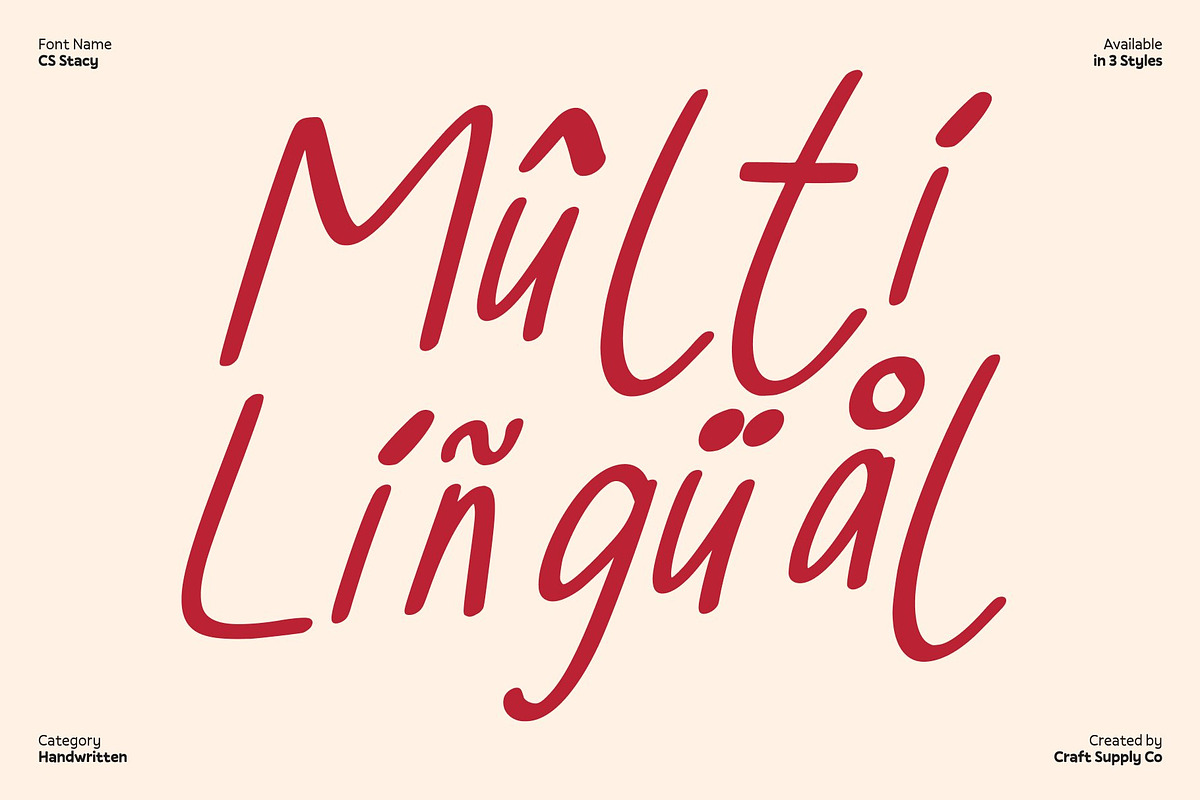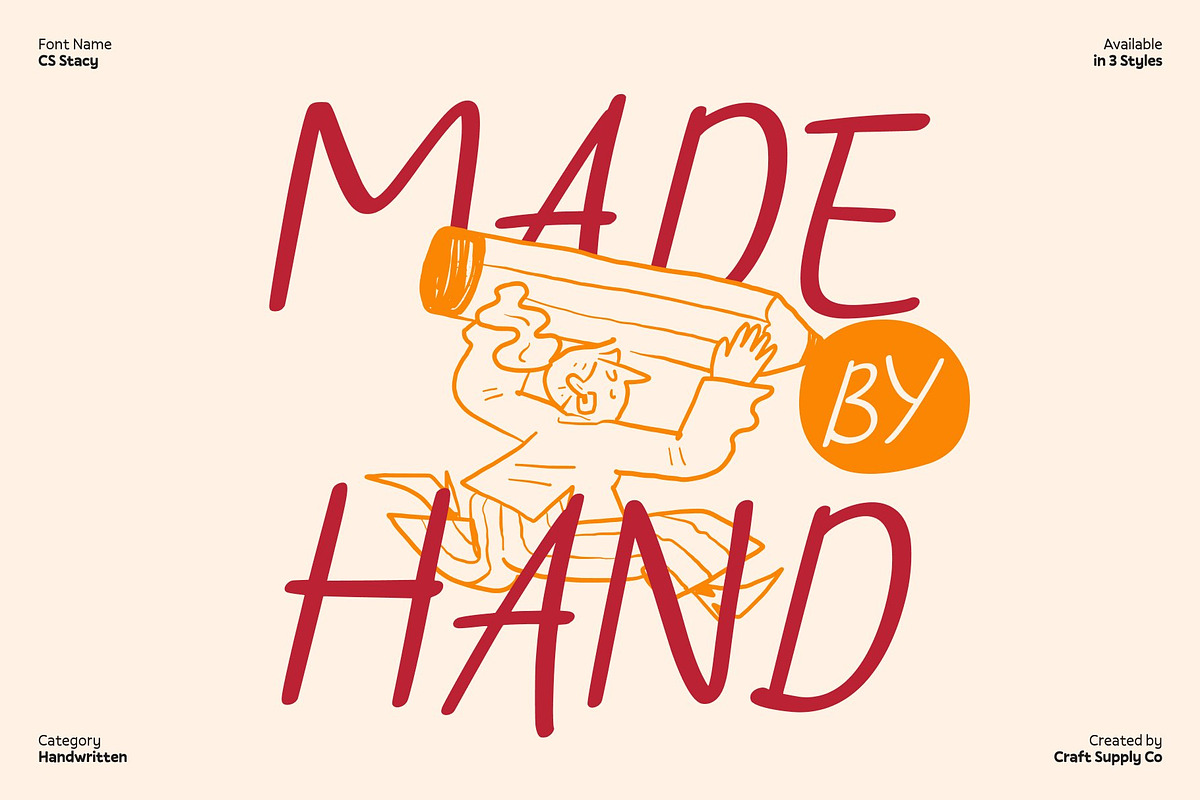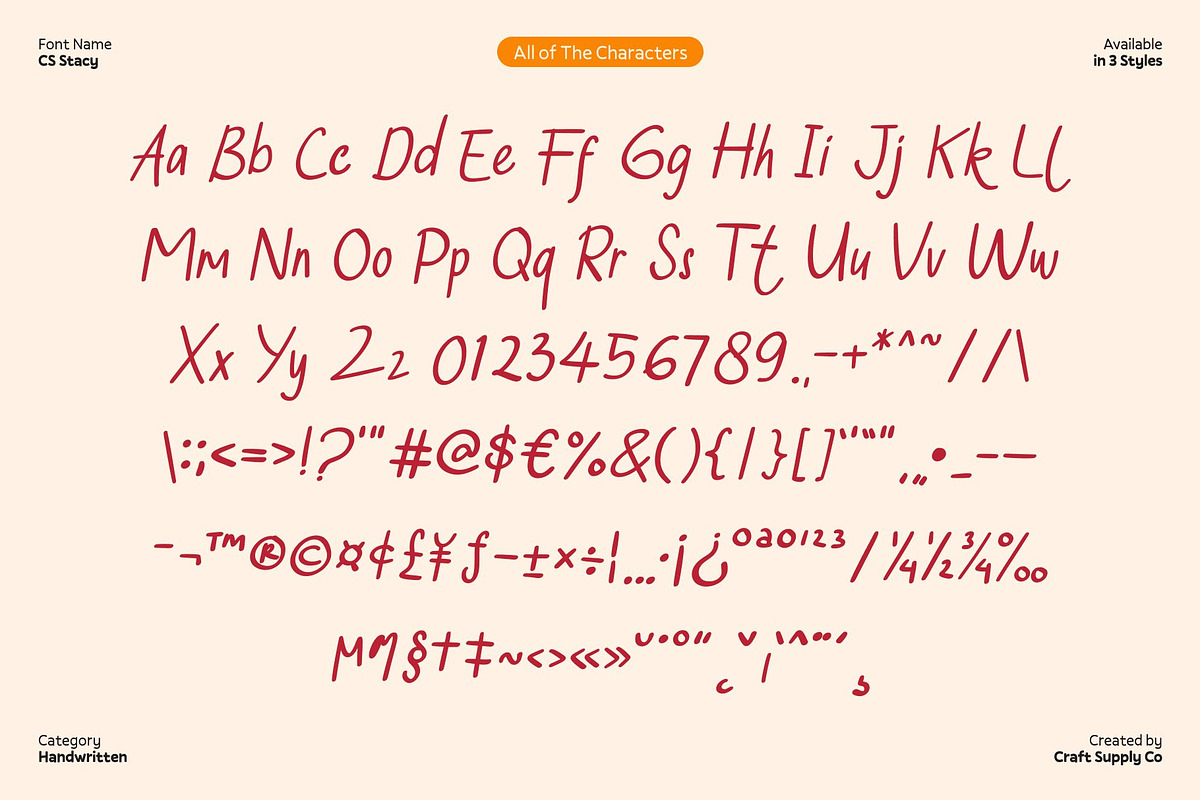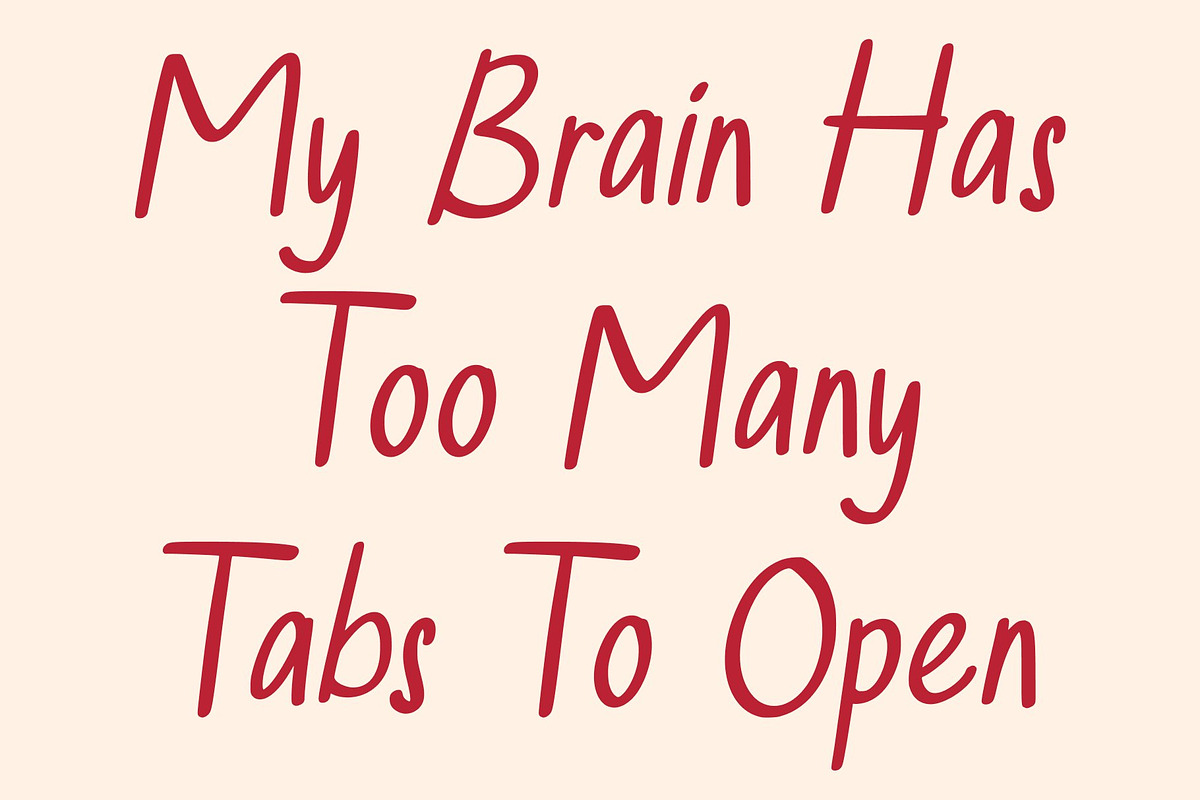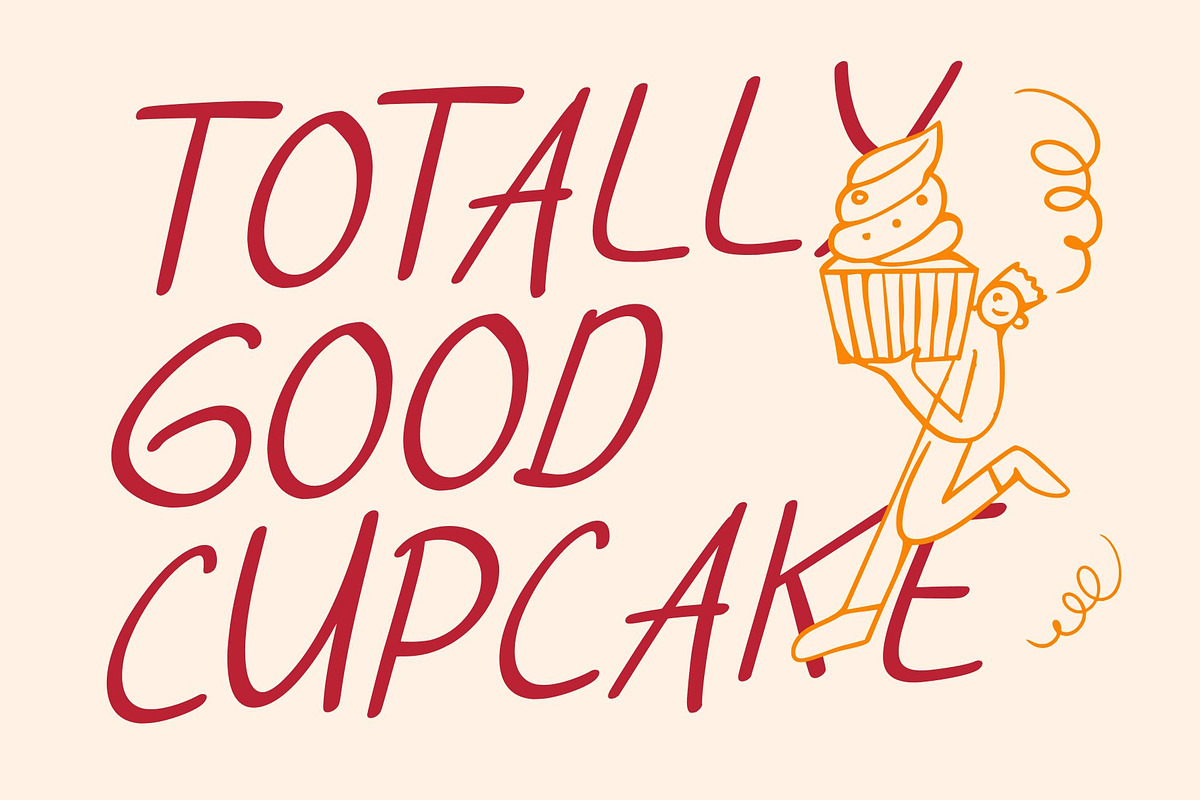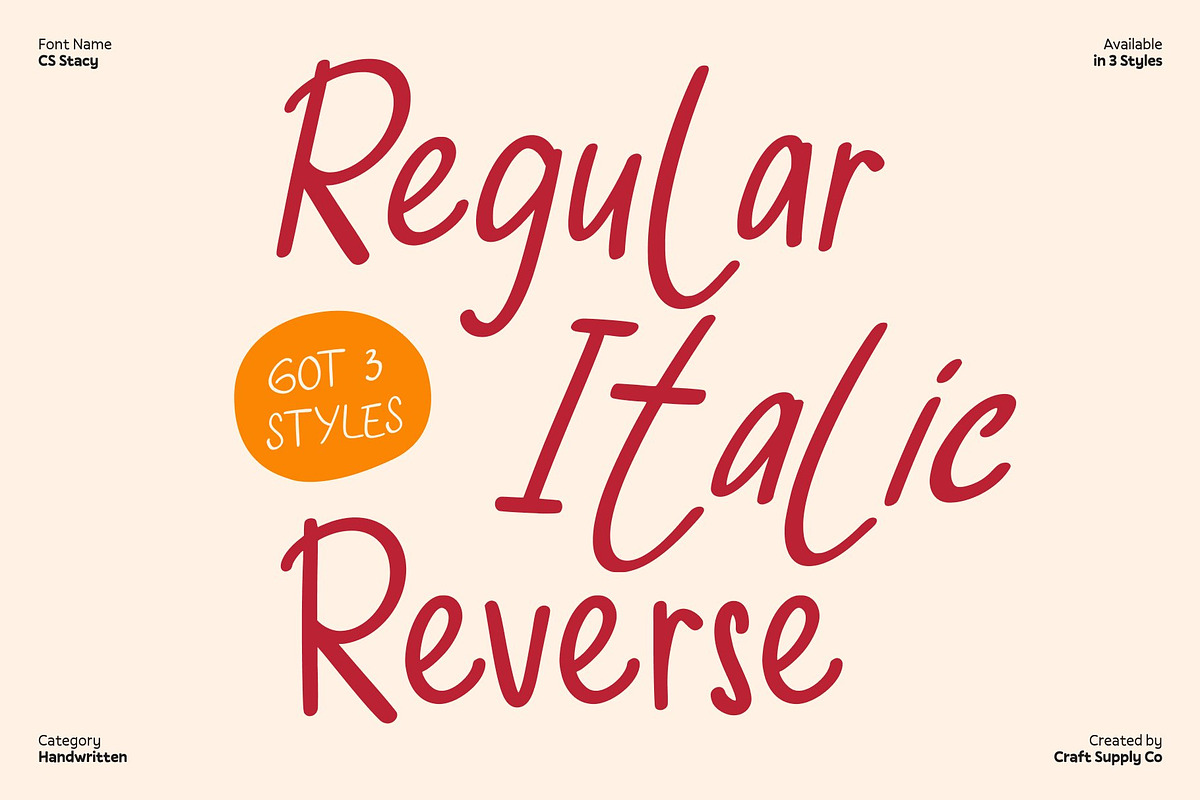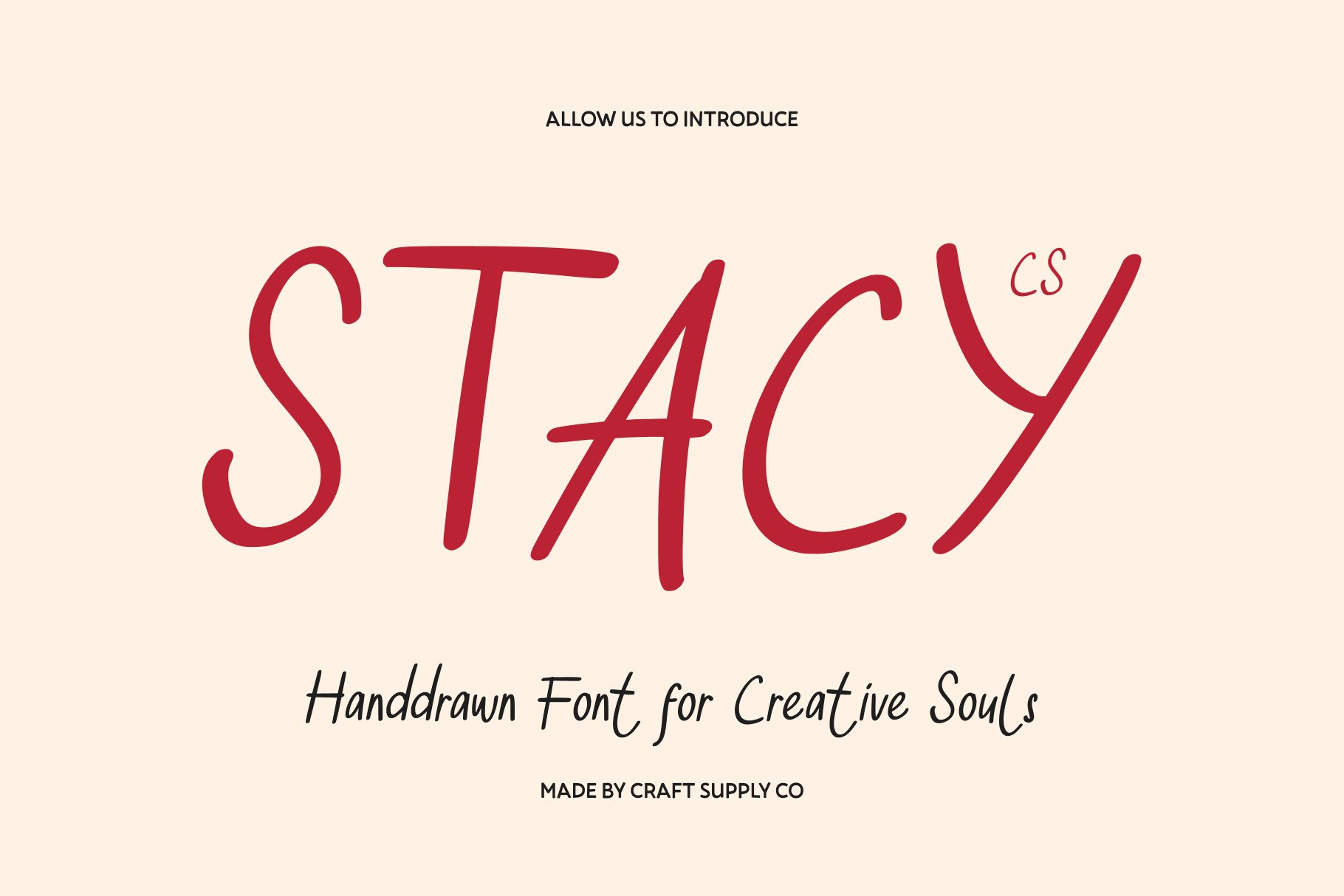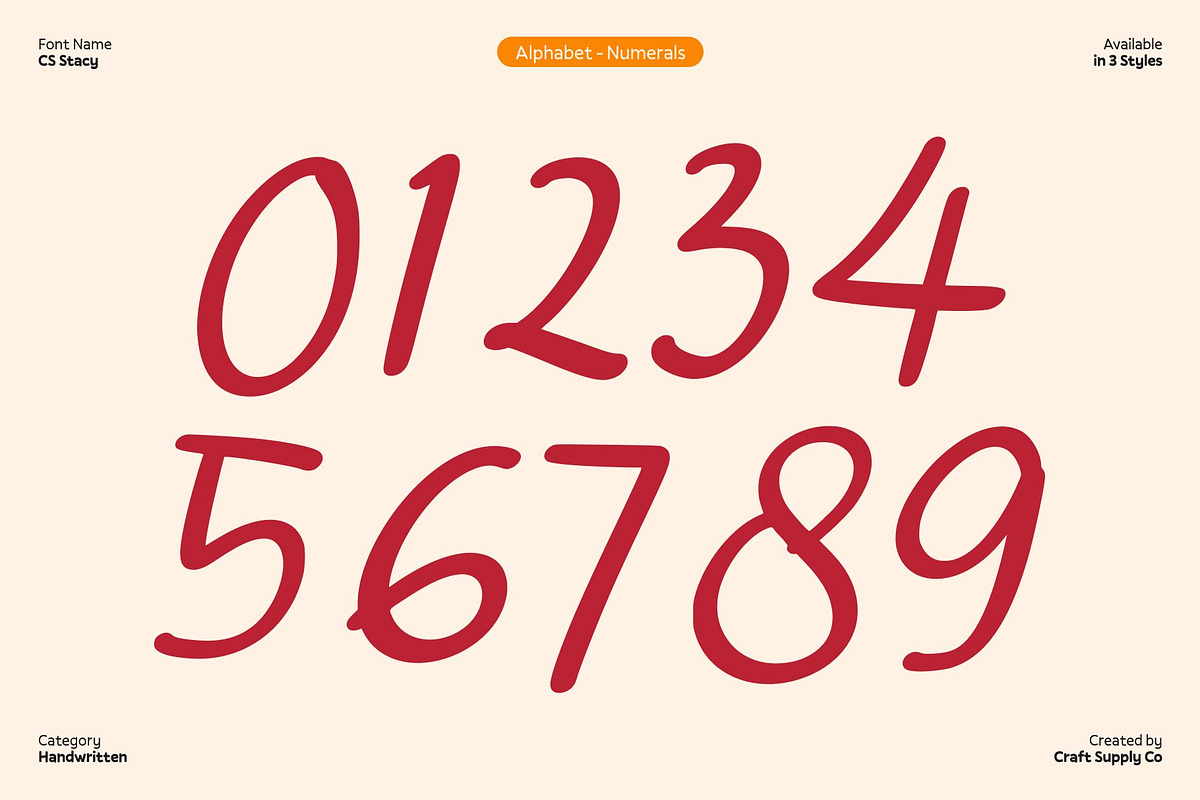
CS Stacy – Hand Drawn Font
CS Stacy – Hand-Drawn Font with Organic Character
Organic Hand-Drawn Style with Expressive Personality This is an organic hand-drawn font designed to capture the charm and authenticity of handmade lettering. Its expressive lines and natural imperfections give each character a lively, handcrafted feel, making it ideal for designs that require personality and warmth.
Unique Handmade Character for Creative Design With its irregular strokes and playful shapes, stands out as a font full of character and creativity. Each letter conveys a sense of individuality and authenticity, making your designs feel personal, approachable, and visually engaging.
Perfect for Labels, Posters, and Packaging This font excels in applications that benefit from a handcrafted, artistic touch. It is perfect for product labels, posters, creative packaging, and branding projects where a unique, human-made aesthetic is desired. The organic flow of the letters enhances readability while adding charm and flair.
Ideal for Expressive and Creative Projects Whether used in branding, editorial layouts, or decorative displays, brings a playful yet professional handmade vibe to your designs. Its organic style ensures that every project feels distinct, creative, and visually memorable, making it the perfect choice for designers seeking expressive, hand-crafted typography.
- CS Stacy Regular
- CS Stacy Italic
- CS Stacy Reverse Italic